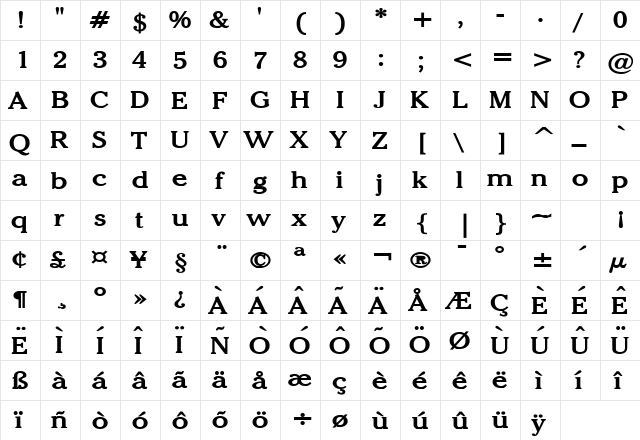
Chelsey Wide Bold
Design Context for Chelsey Wide Typeface
Chelsey Wide offers clean, dependable letterforms without strong stylistic allegiance, making it a practical choice for designers who need flexibility. The heavy weight commands attention and anchors typographic hierarchies.